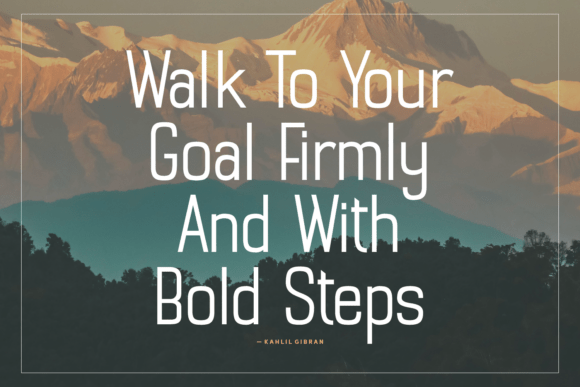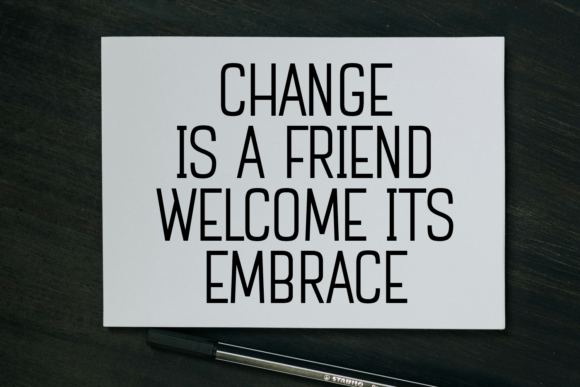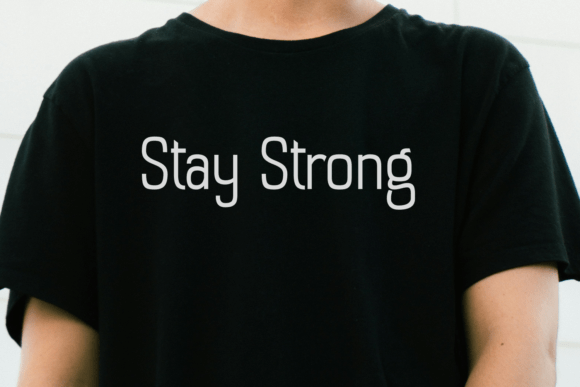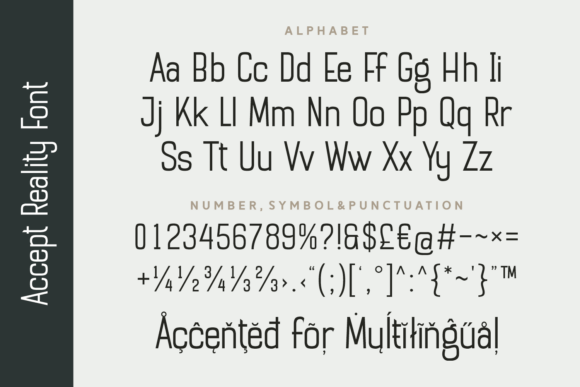
Accept Reality Font: Elevate Your Design with a Bold, Minimalist Statement
Are you looking for a font that can make a lasting impression on your audience? Look no further than Accept Reality, a striking, tall sans serif font that embodies modern geometry and sleek lines. With its strong verticality and spacious structure, this typeface is perfect for designers and crafters who want to deliver high impact in branding, editorial design, posters, and web interfaces.
The Power of Accept Reality Font
Accept Reality Font is a clean and contemporary typeface that radiates sophistication and clarity. Its bold, minimalist design makes it perfect for headlines and impactful typographic compositions. The font’s tall and slender structure gives it a unique and distinctive look that can elevate any design project. Whether you’re working on a branding campaign, editorial design, or web interface, Accept Reality Font is sure to make a statement.
Key Features of Accept Reality Font
• Strong Verticality: The font’s tall structure gives it a sense of grandeur and sophistication, making it perfect for headlines and titles.
• Sleek Lines and Modern Geometry: The font’s sleek lines and modern geometry give it a clean and contemporary look that’s perfect for modern design projects.
• Spacious Structure: The font’s spacious structure makes it easy to read and understand, even at smaller sizes.
• Clean and Contemporary: The font’s clean and contemporary design makes it perfect for a wide range of design projects, from branding to web interfaces.
Use Cases for Accept Reality Font
Accept Reality Font is a versatile typeface that can be used in a wide range of design projects, including:
• Branding: The font’s bold and minimalist design makes it perfect for logos, trademarks, and other branding elements.
• Editorial Design: The font’s clean and contemporary design makes it perfect for editorial design projects, such as magazines, newspapers, and books.
• Posters: The font’s strong verticality and sleek lines make it perfect for posters and other large-format designs.
• Web Interfaces: The font’s clean and contemporary design makes it perfect for web interfaces, such as websites and mobile apps.
Why Choose Accept Reality Font?
There are many reasons why designers and crafters should choose Accept Reality Font for their next design project. Here are just a few:
• Unique and Distinctive Look: The font’s tall and slender structure gives it a unique and distinctive look that can elevate any design project.
• High Impact: The font’s bold and minimalist design makes it perfect for headlines and impactful typographic compositions.
• Versatility: The font’s clean and contemporary design makes it perfect for a wide range of design projects.
• Sophistication and Clarity: The font’s clean and contemporary design radiates sophistication and clarity, making it perfect for designers who want to create high-end designs.
Accept Reality Font is a bold, minimalist typeface that’s perfect for designers and crafters who want to make a lasting impression on their audience. With its strong verticality, sleek lines, and modern geometry, this font is sure to deliver high impact in branding, editorial design, posters, and web interfaces. Whether you’re working on a small design project or a large-scale branding campaign, Accept Reality Font is a great choice.